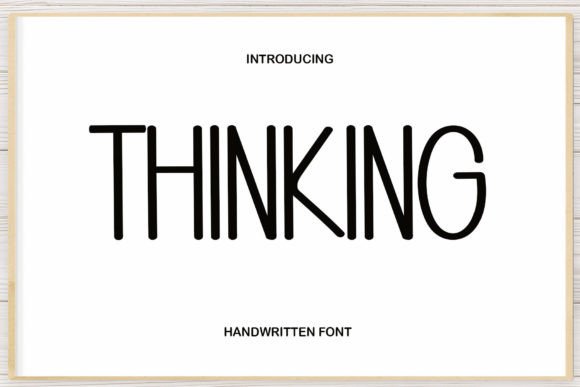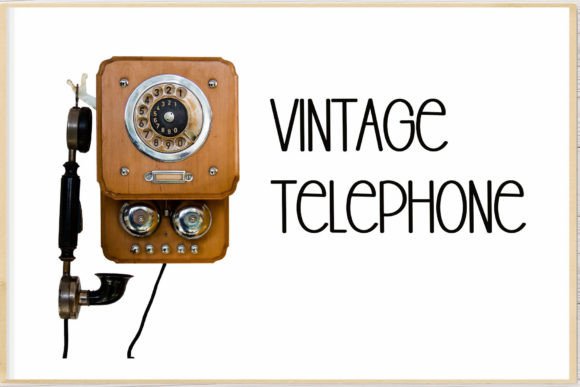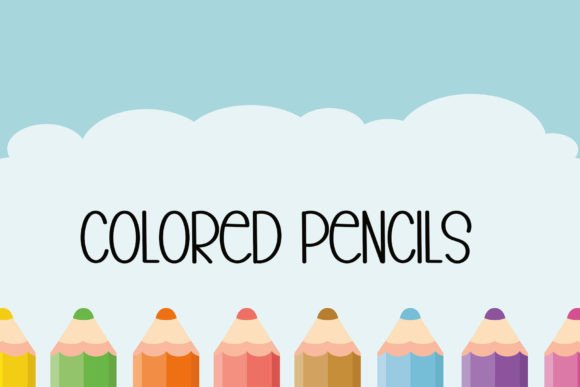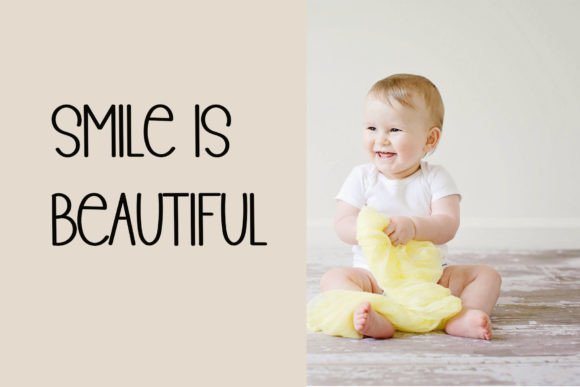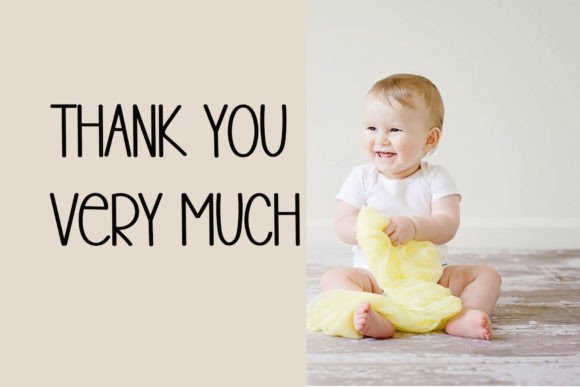
Thinking is a delicate, elegant, and minimalist sans serif font. It has beautiful and well-balanced characters and as a result, it matches a wide pool of designs. Add it to your most creative ideas, and notice how it makes them come alive!
Thinking Font